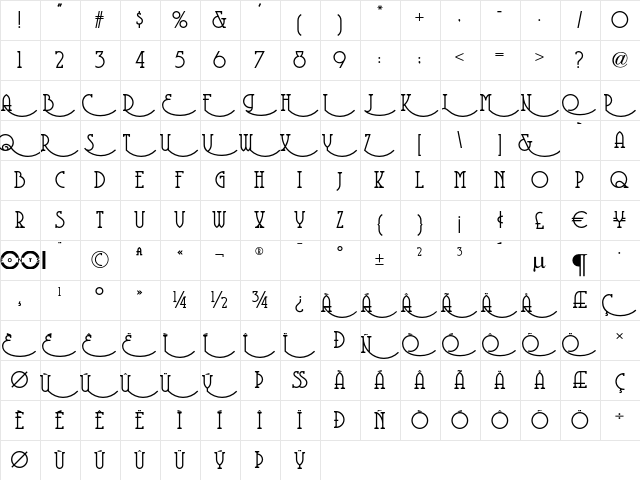
Coventry Garden NF Regular
Design Context for Coventry Garden NF Typeface
Coventry Garden NF is a composed and adaptable typeface that performs quietly and consistently across a wide range of design contexts.